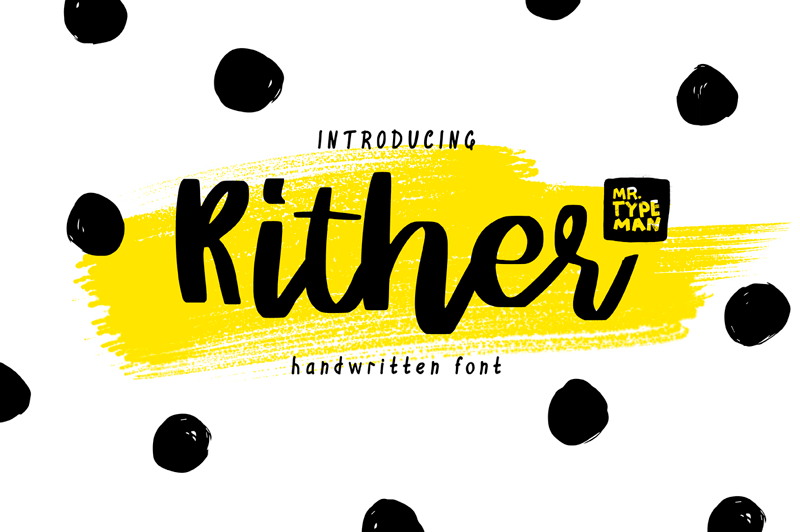
Preview and download Rither Font. Created by Mr. Typeman in Script Handwritten styles with Demo license.
Font name: | Rither |
Author: | Mr. Typeman |
This is the demo version of the font which was made for you to try out it in your projects. This means you can NOT use it for personal or commercial aims. ---------------------------------------------------- DOWNLOAD FULL VESION FOR PERSONAL AND COMMERCIAL USE: https://creativemarket.com/Mr.Typeman https://thehungryjpeg.com/mr-typeman/ ---------------------------------------------------- Do you want to give a cheerful and carefree mood to your work? Rither will ideally help to bring your ideas into reality! Rither was created for warm emotions and the most cheerful progects!Full version of Rither comes with uppercase, lowercase, standard punctuation and special letters for most of the European languages. ---------------------------------------------------- Contact me if you have any questions: mr.typeman@gmail.com ---------------------------------------------------- Enjoy! |